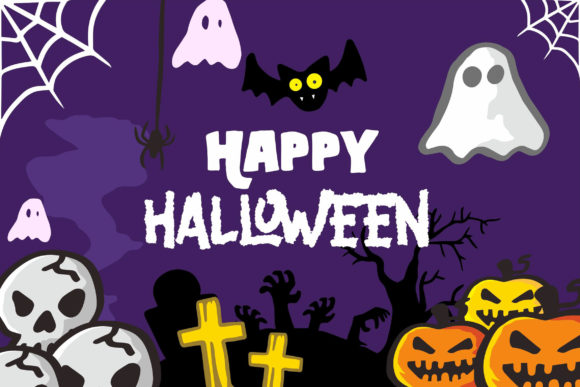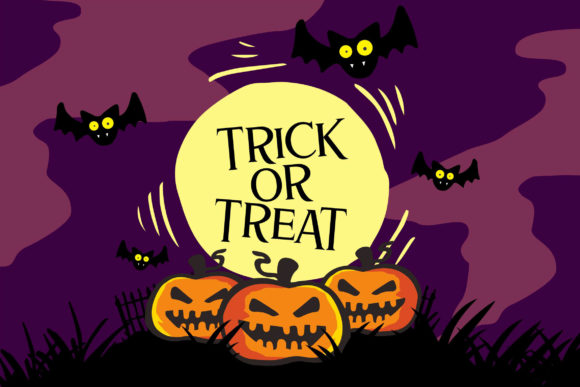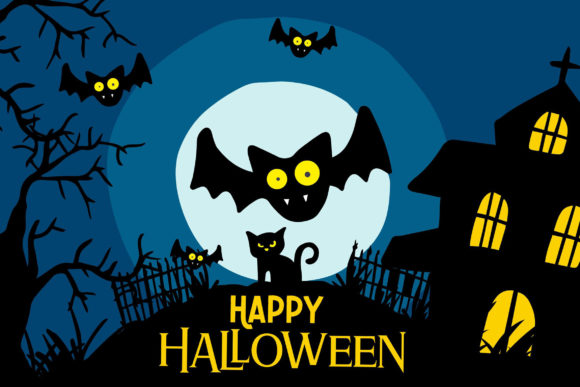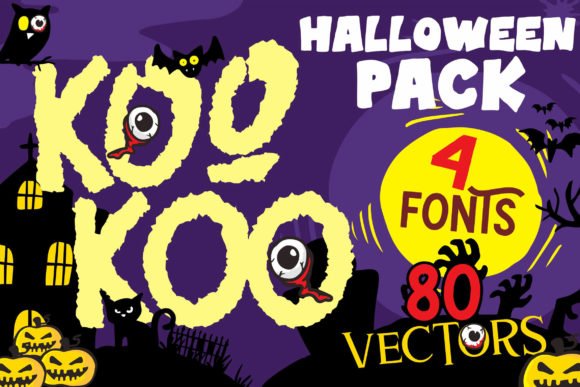
Introduction to Koo Koo Font
Koo Koo is an incredibly cute and unique display font.
Add it to your favorite Halloween themed ideas and notice how it makes them stand out .
Key Features of Koo Koo Font
Why Choose Koo Koo Font?
Koo Koo Font offers exceptional quality and versatility, making it a valuable addition to your design toolkit. Whether you’re creating for personal projects or commercial use, Koo Koo Font delivers professional results.